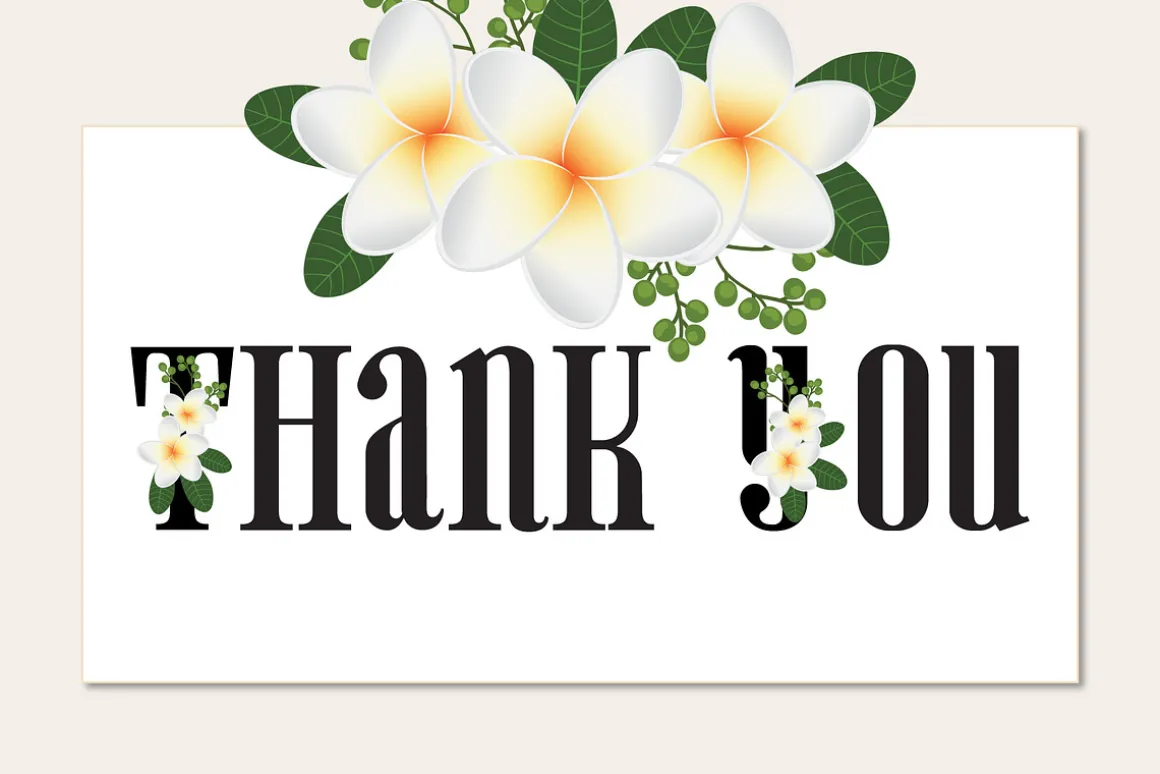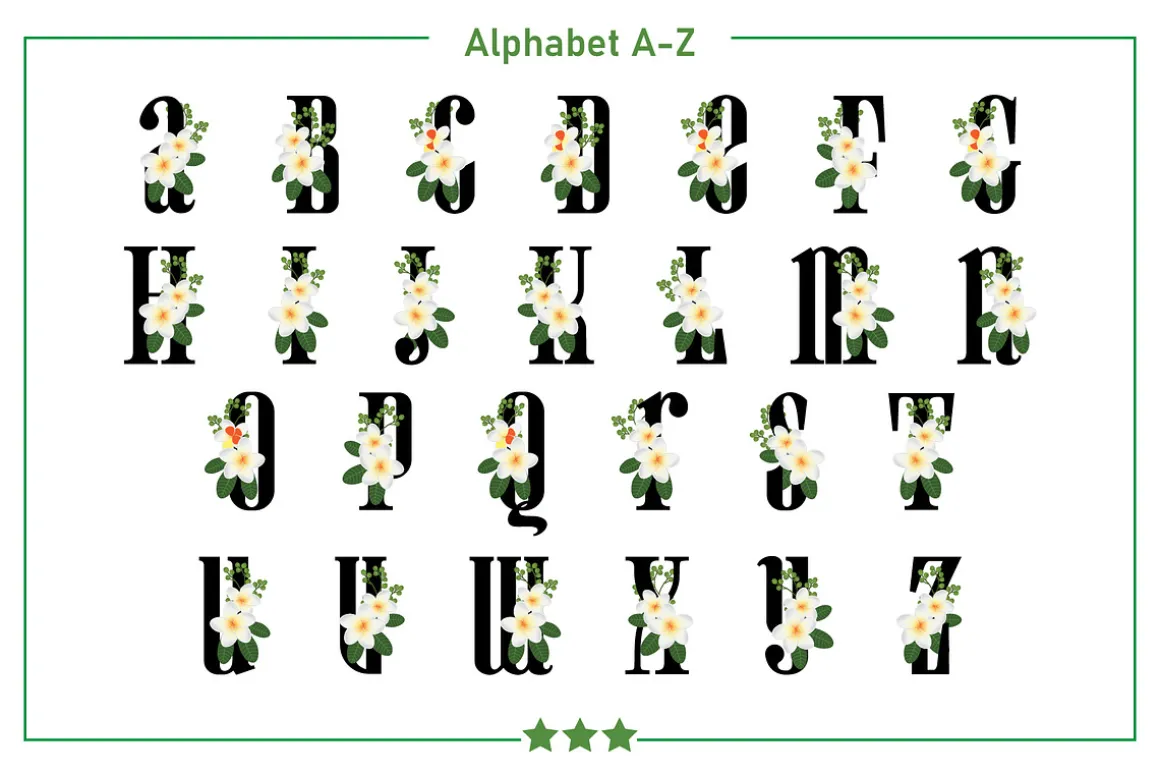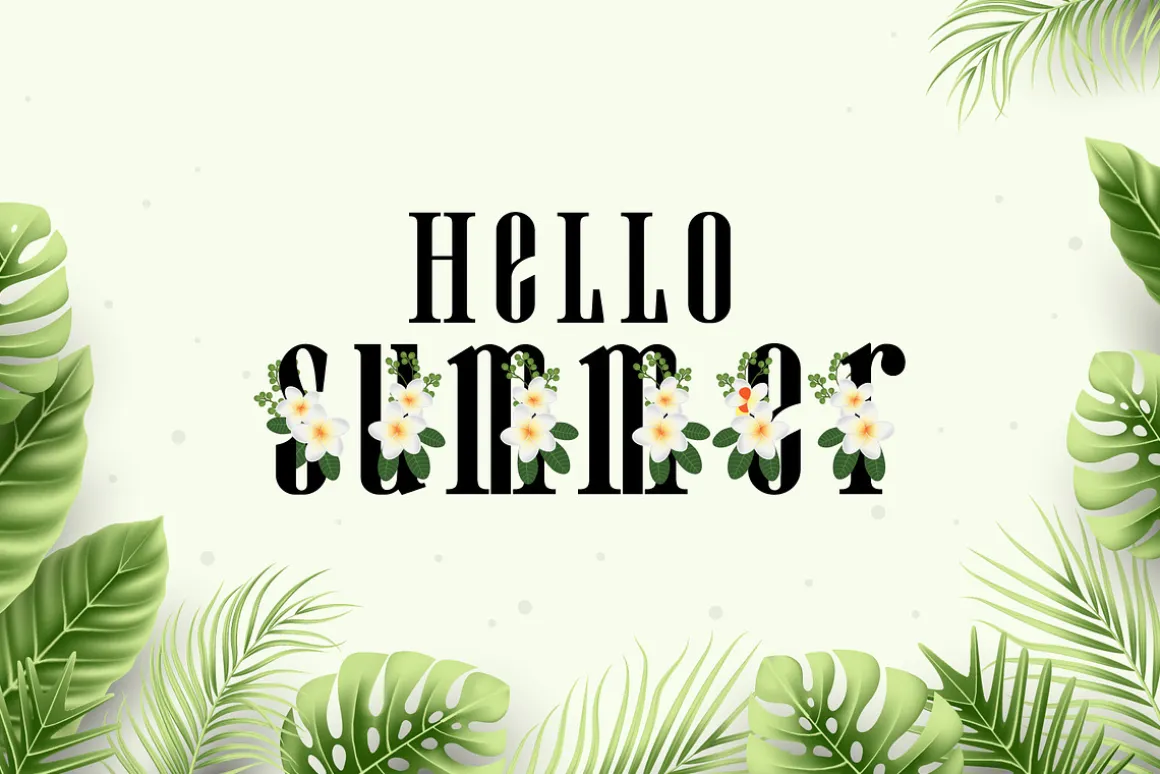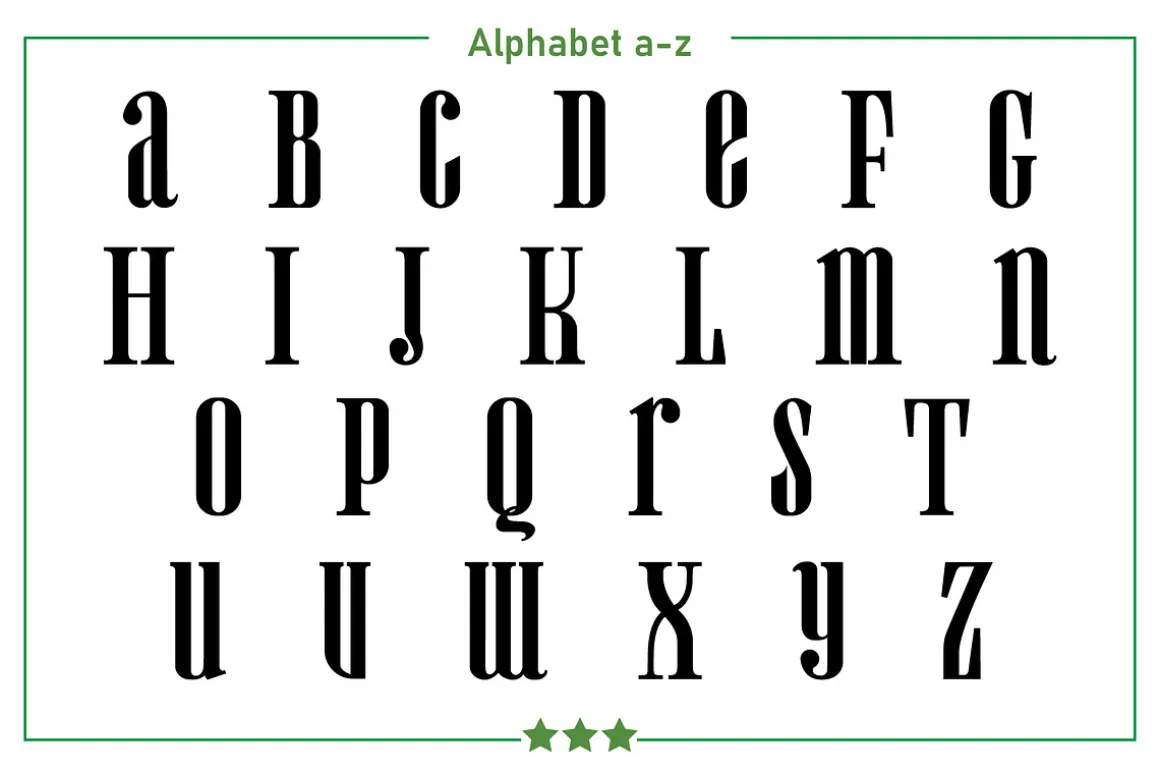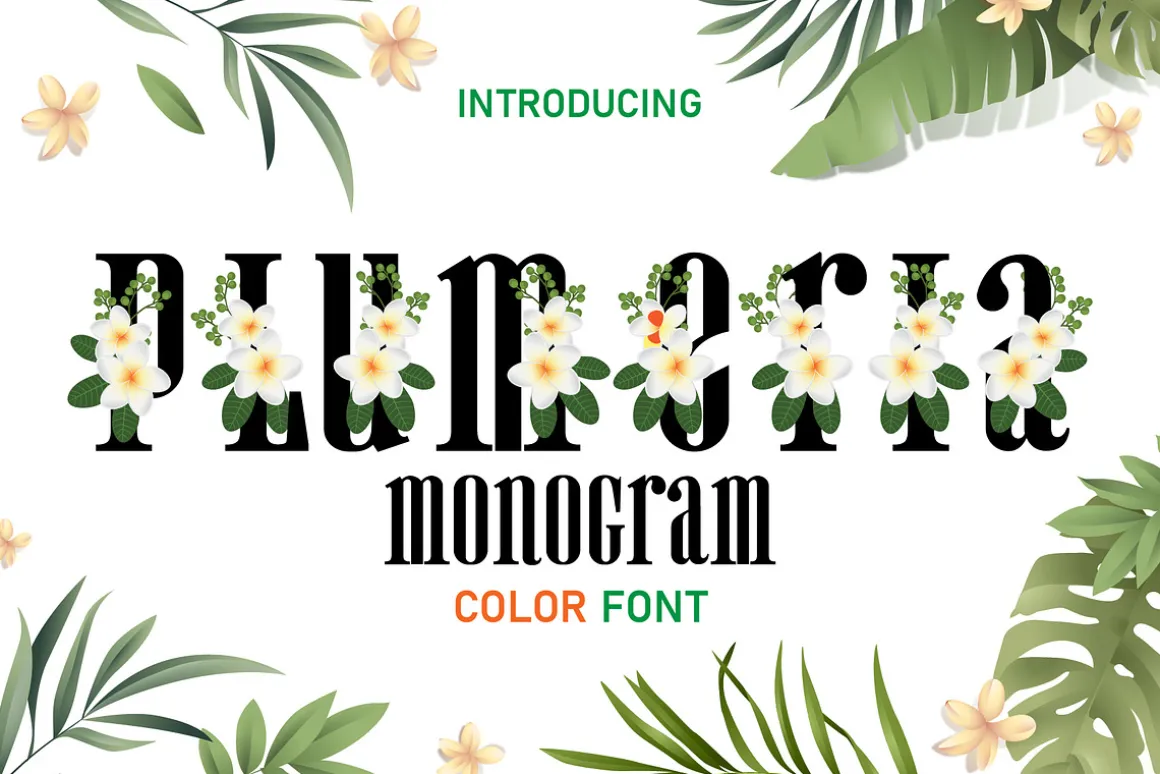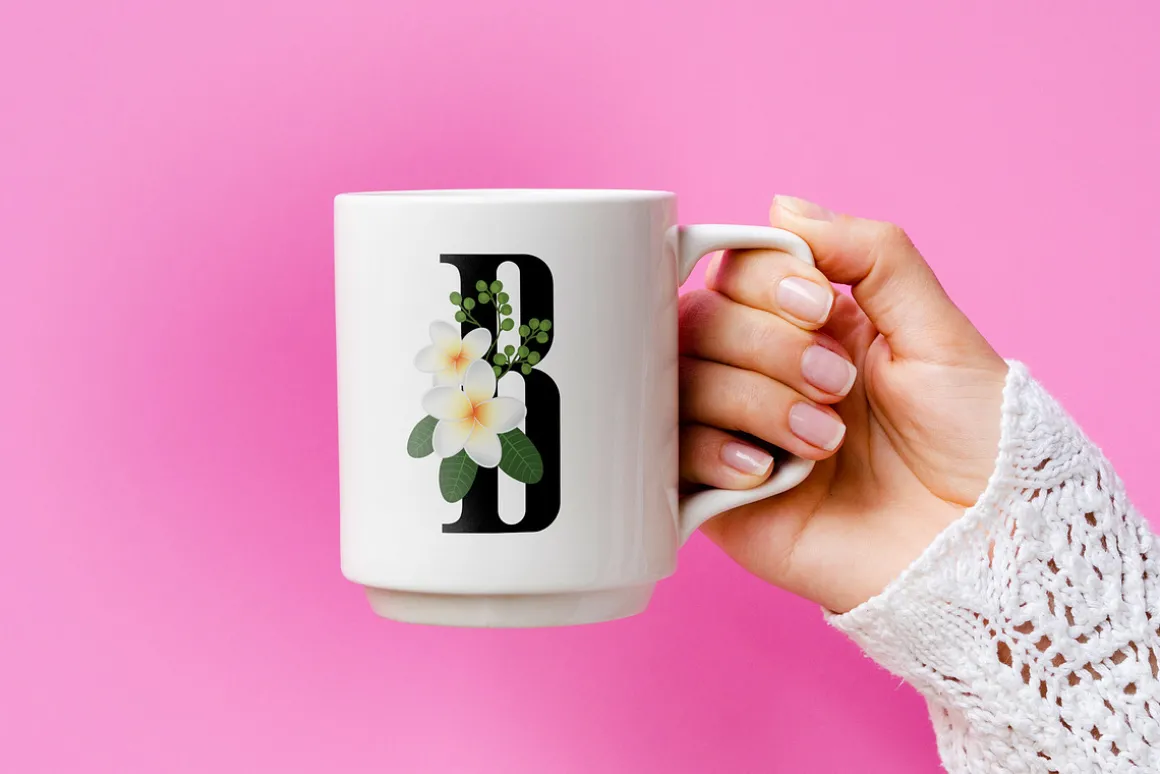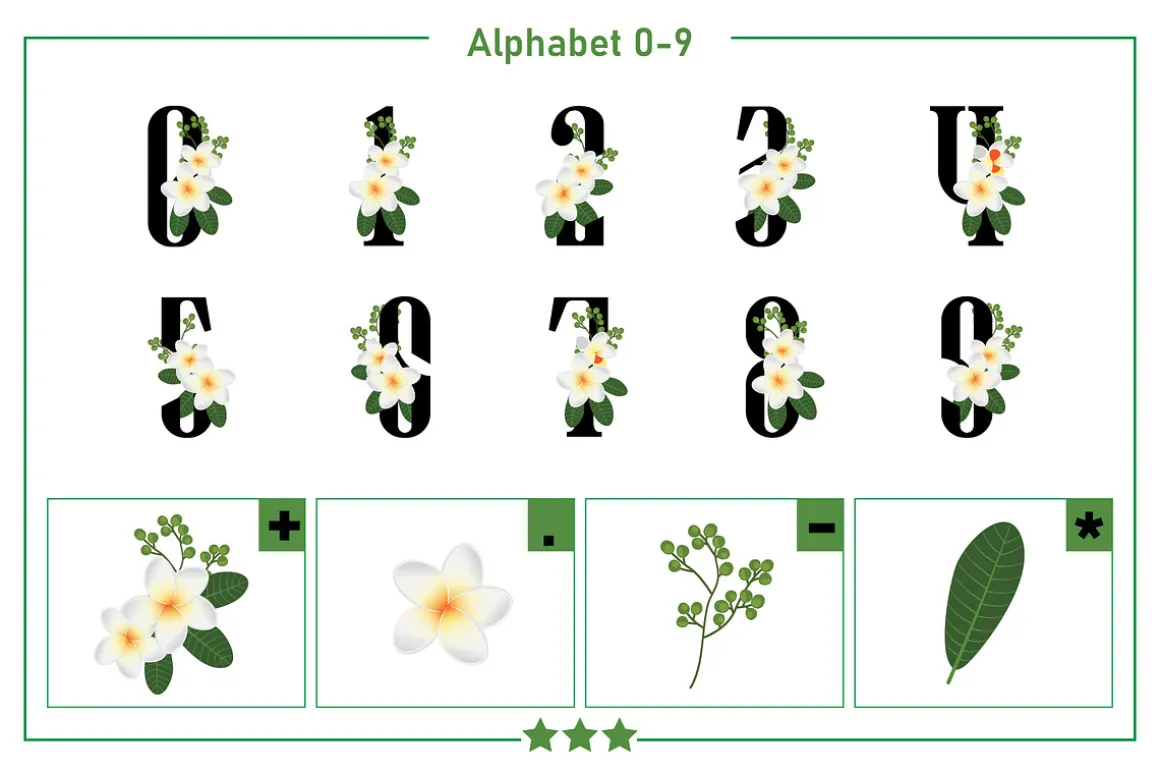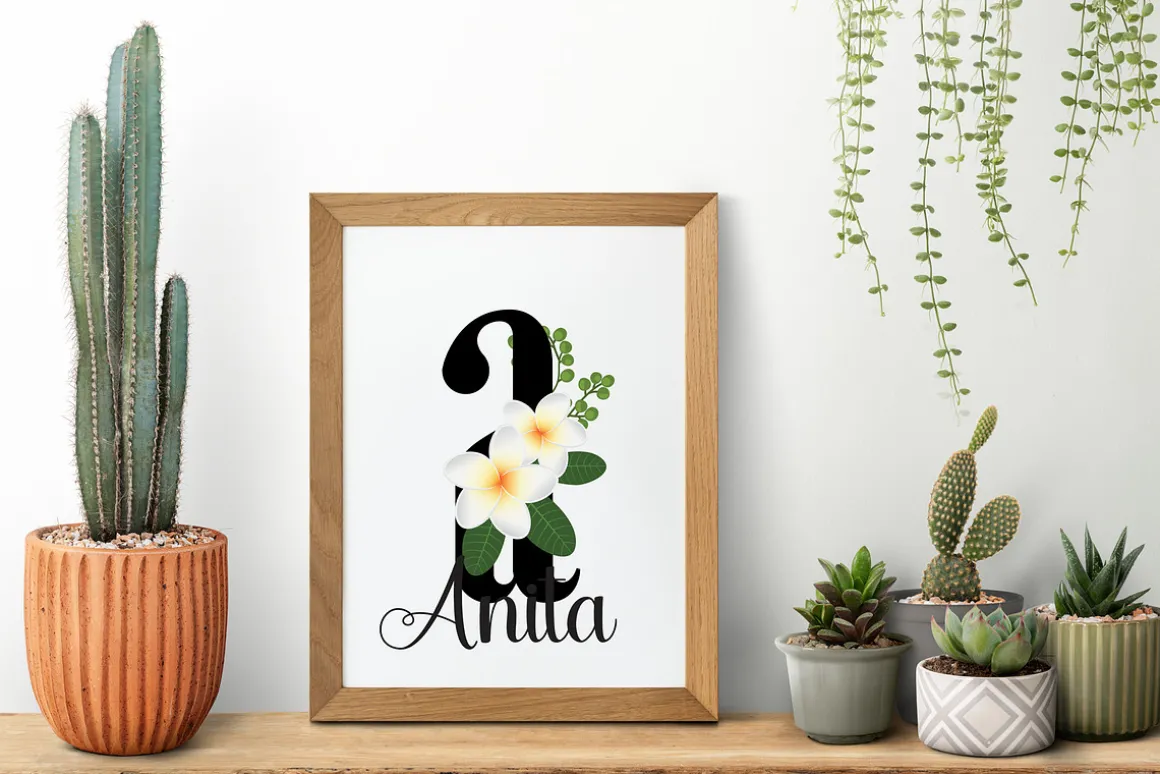
Plumeria Monogram is a meticulously designed color font. that feels like summer, and bright and beautiful.Fall in love with its authenticity and use it to create gorgeous invitations, beautiful stationary art, eye-catching social media posts, and cute greeting cards. Add this beautiful font to each of your creative ideas, and notice how it makes them stand out.